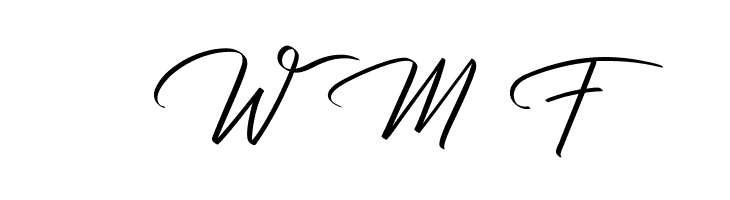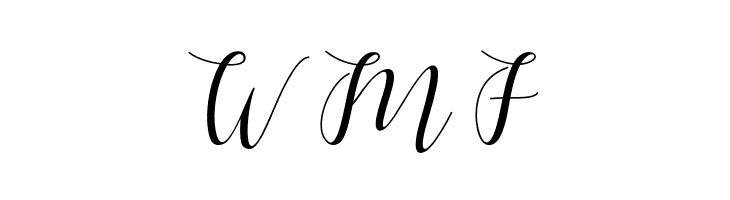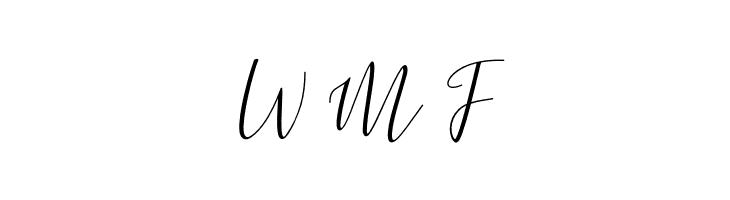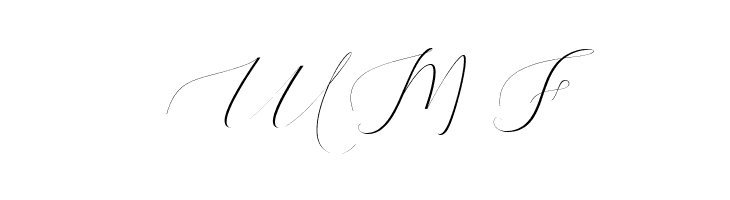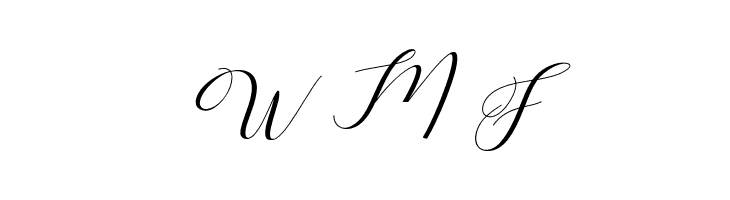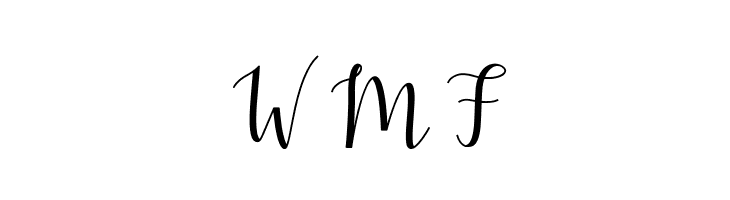
An elegant, flowing script font with intricate loops and swashes.
An elegant, cursive font with a handwritten signature style.
A fluid, elegant script font with a graceful, handwritten style.
A flowing, cursive script font with elegant loops and flourishes.
A graceful and elegant script font with flowing, connected strokes.
An elegant script font with flowing, ornate letterforms and intricate swashes.
An elegant, flowing script font with smooth, connected strokes and a sophisticated appearance.
An elegant script font with flowing lines and sophisticated style.
An elegant script font with flowing lines and high contrast, perfect for formal uses.
An elegant script font with flowing, cursive lines and a refined aesthetic.